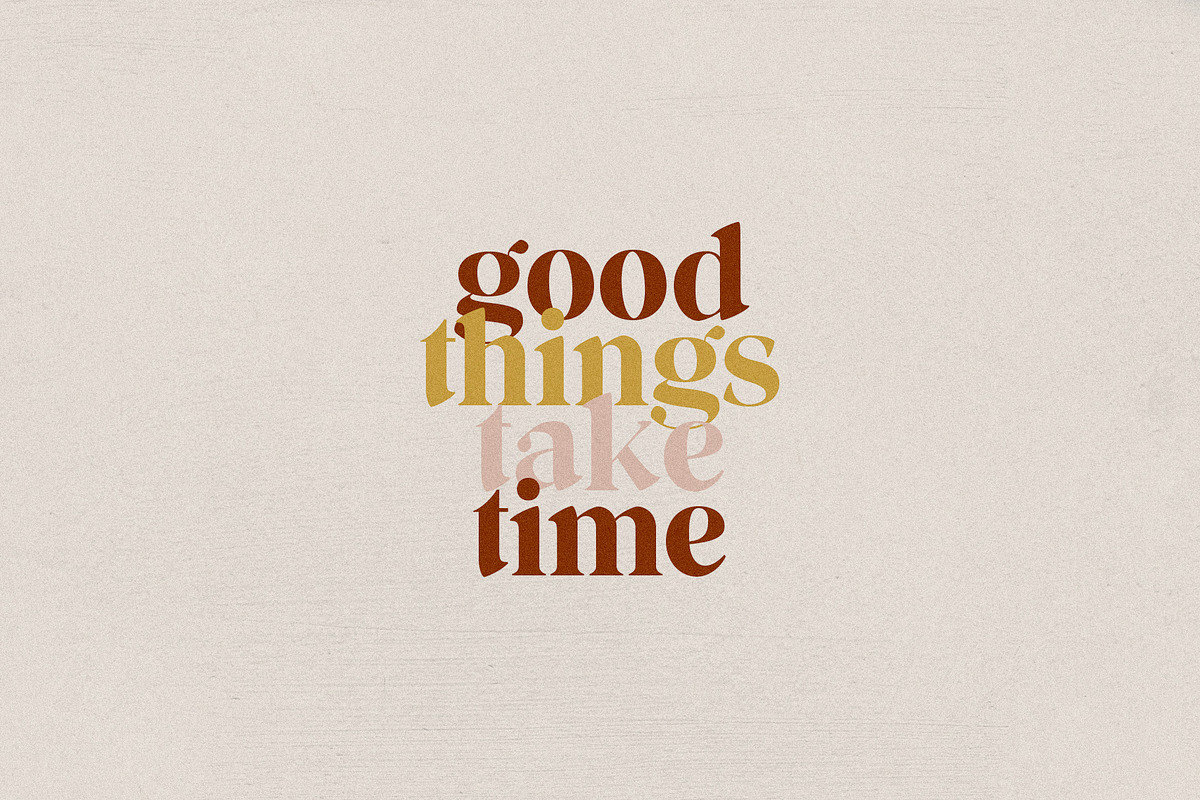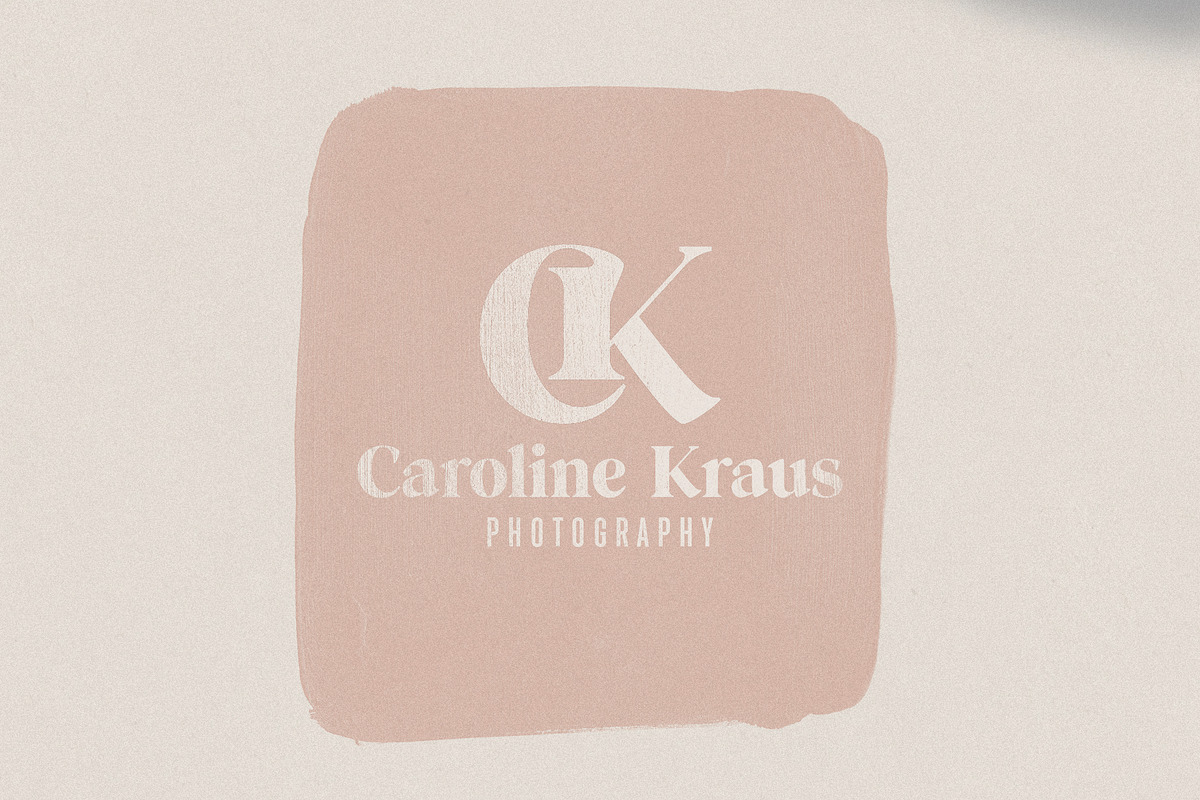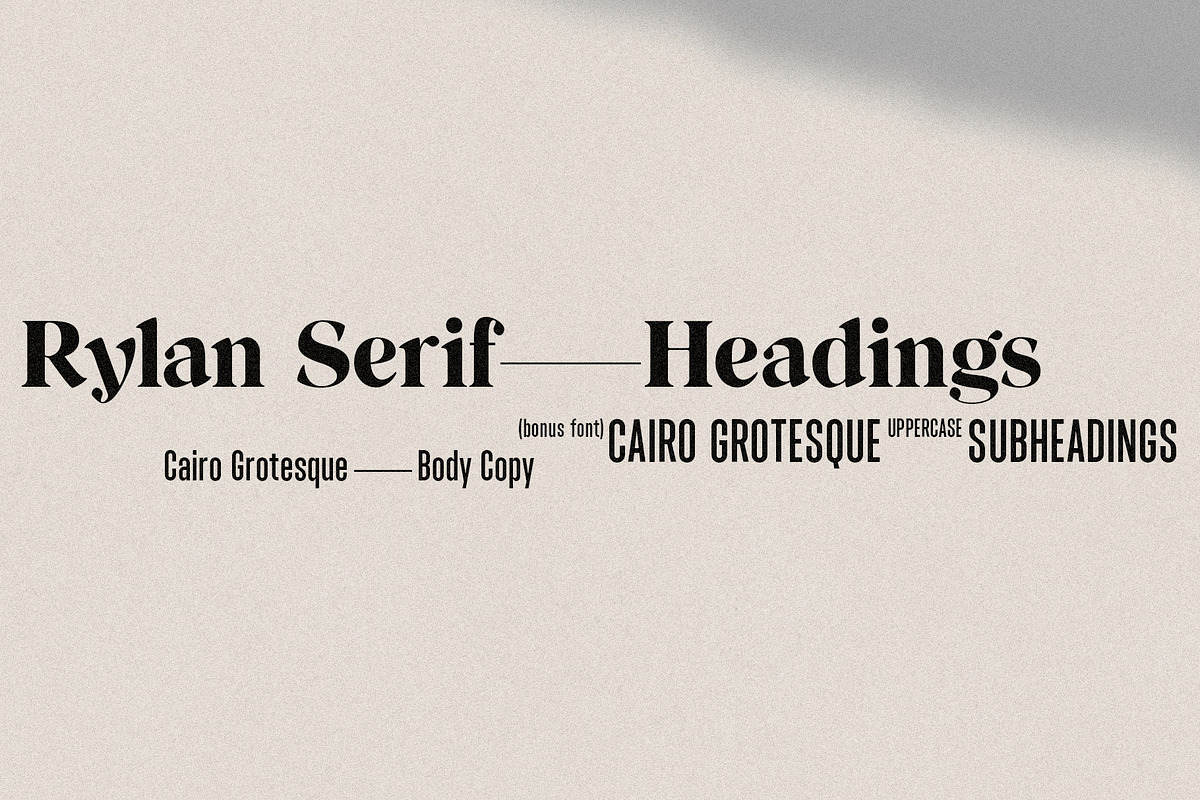
Rylan is the classic serif font. I’ve been looking for in my design work – clean lines, modern serifs, and just a touch of vintage. It looks gorgeous in logo work as well as web headings and printed materials, and this pack comes with lots of bonuses!
- Upper & lowercase letters
- Numbers & punctuation
- Foreign language accents & characters for the international designer